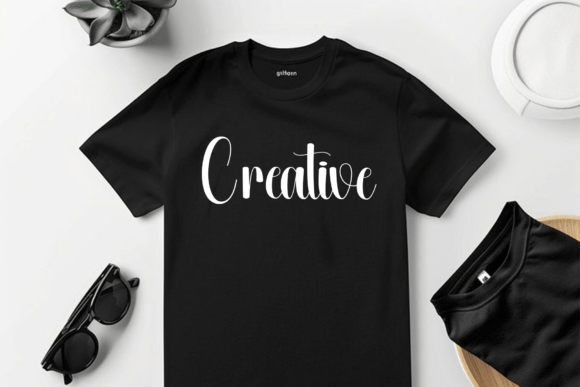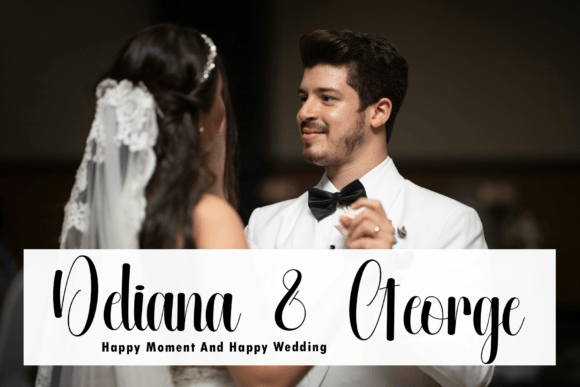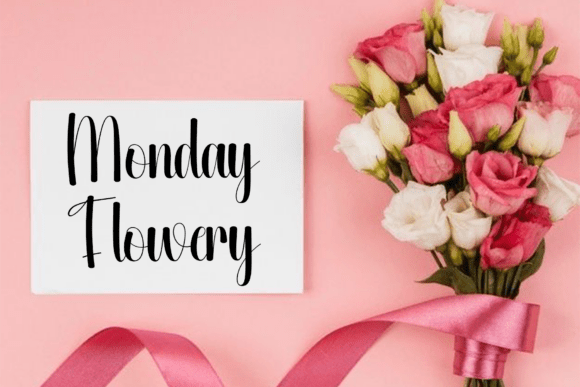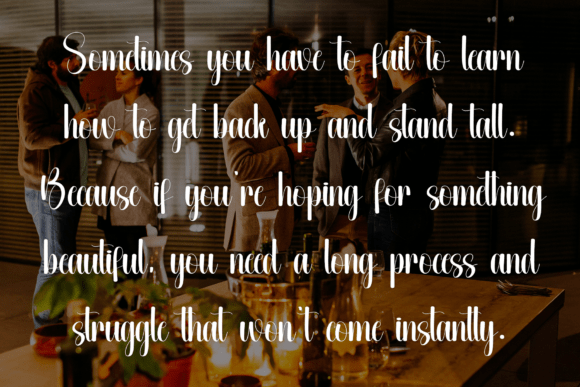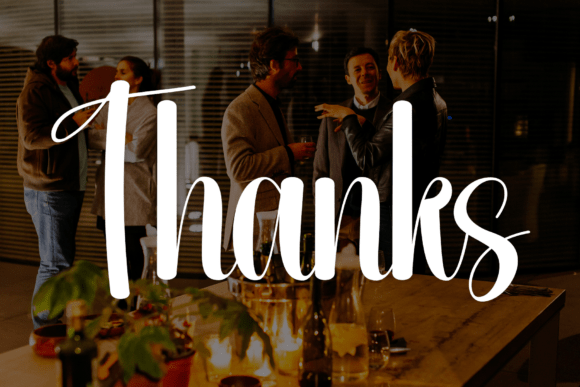
Introducing Dinner Font: Elevate Your Design with Modern Elegance
In the world of typography, fonts play a crucial role in defining the aesthetic and tone of a design. For those seeking to infuse their projects with a touch of luxury and sophistication, the Dinner Font is an exceptional choice. This stunning handwritten script font is crafted to bring modern elegance to a wide range of applications, from luxury branding and signature logos to wedding stationery and high-end editorial content.
The Essence of Dinner Font
Dinner Font is characterized by its fluid, signature-like motion, which sets it apart from more traditional fonts. Its design embodies a delicate balance of tall ascenders and graceful, sweeping loops. This balance creates a rhythmic and sophisticated visual flow that captures the eye and conveys a sense of refinement. Each letter is carefully crafted to ensure that the font exudes an air of class and poise, making it perfect for designers and crafters looking to elevate their work.
Key Features of Dinner Font
- Fluid, Signature-Like Motion: The font’s fluidity gives it a dynamic and organic feel, reminiscent of handwritten signatures. This quality makes it particularly effective for use in luxury branding and signature logos, where uniqueness and personality are paramount.
- Delicate Balance of Ascenders and Loops: The tall ascenders and graceful loops work in harmony to create a visually appealing rhythm. This balance not only adds to the font’s elegance but also enhances readability, making it suitable for longer texts such as editorial content.
- Modern Elegance: The overall design of Dinner Font speaks to modern elegance. Its contemporary aesthetic ensures that it will stand out in any project, from traditional wedding stationery to cutting-edge digital content.
Applications of Dinner Font
Dinner Font’s versatility makes it an invaluable asset for a variety of design projects. Here are some of the key areas where this font truly shines:
- Luxury Branding: For brands aiming to convey a sense of luxury and exclusivity, Dinner Font offers a typographic solution that is both sophisticated and memorable.
- Signature Logos: The font’s unique, handwritten quality makes it ideal for signature logos that require a personal touch. It helps in creating a distinctive identity that stands out.
- Wedding Stationery: For wedding invitations, menus, and other stationery, Dinner Font adds a romantic and elegant flair, setting the tone for a sophisticated celebration.
- High-End Editorial Content: In editorial design, the font brings a level of refinement and class, making it suitable for high-end publications, magazines, and digital content.
Why Choose Dinner Font?
Choosing Dinner Font for your design project comes with several advantages:
- Unique Aesthetic: The font’s modern elegance and fluid motion offer a unique aesthetic that can set your design apart from the rest.
- Versatility: Its suitability for a wide range of applications makes it a versatile addition to any designer’s toolkit.
- Elegance and Sophistication: It brings an unmistakable touch of class to every word, enhancing the overall impact of your design.
Dinner Font is more than just a typeface; it’s a design statement. Its modern elegance, fluid motion, and sophisticated aesthetic make it an excellent choice for designers and crafters looking to add a touch of luxury to their projects. Whether you’re working on luxury branding, signature logos, wedding stationery, or high-end editorial content, Dinner Font is sure to elevate your design to new heights of elegance and refinement.
Embrace the beauty of Dinner Font and discover how it can transform your designs with its unique blend of modern style and classic elegance.